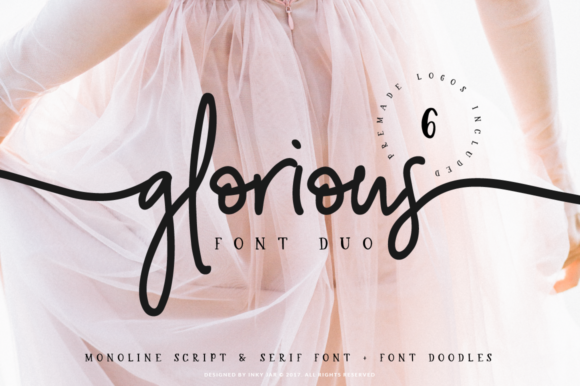
Introducing the Glorious Duo Font – the ultimate choice for those seeking a captivating and versatile typography experience. Created by inkyjar, this font family is specifically designed to elevate your brand and projects to new heights.
What sets the Glorious Duo Font apart is its unique combination of a signature style monoline script font and a beautifully handwritten serif font. This harmonious blend of elegance and authenticity brings a touch of sophistication to all your designs.
But wait, there's more! The Glorious Duo Font also includes a delightful doodle font with an abundance of hand-drawn shapes. This whimsical addition adds a playful and artistic flair to your branding or any creative endeavor.
With the Glorious Duo Font, the possibilities are truly endless. Whether you're a seasoned designer or just starting out, this font collection offers a world of inspiration and convenience.
Unleash your creativity and make a lasting impression with this remarkable font duo. Elevate your brand, captivate your audience, and leave a memorable mark with the Glorious Duo Font.